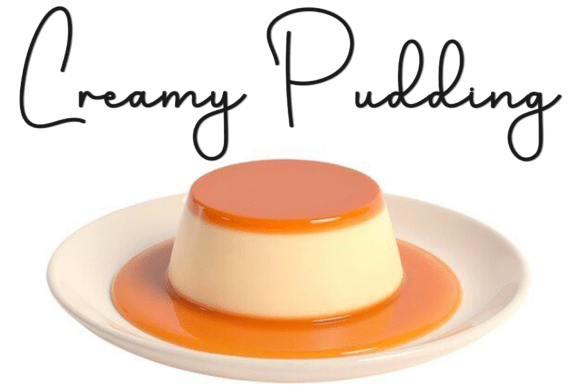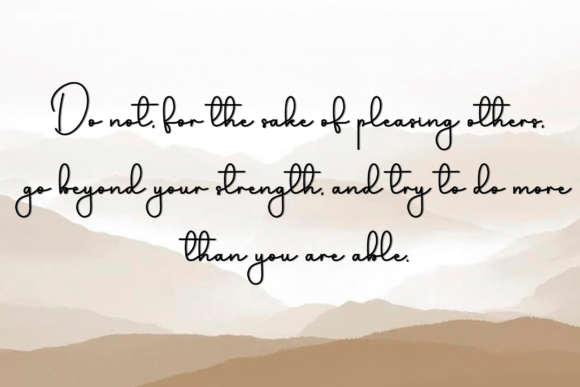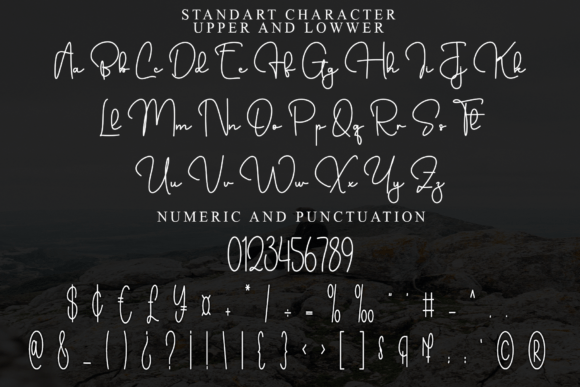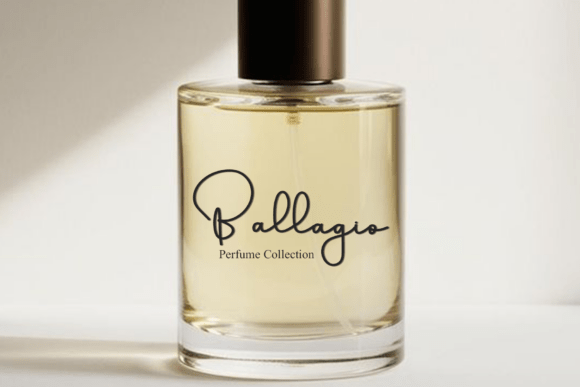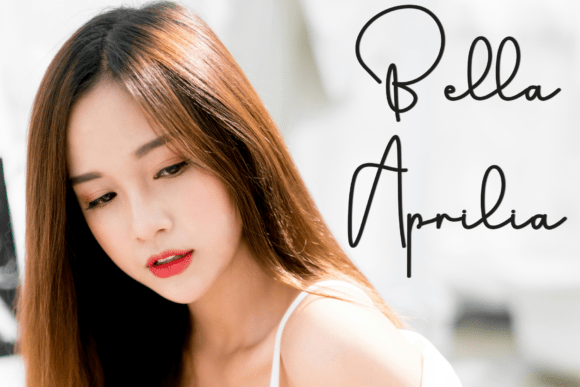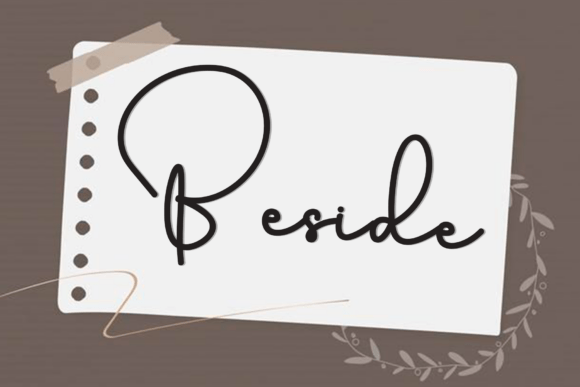
Introducing Belgian Signature: The Epitome of Elegance in Modern Calligraphy
In the realm of typography, few fonts manage to convey the essence of luxury and sophistication as effectively as Belgian Signature. This elegant and fluid script font is meticulously designed to infuse a sense of refined, hand-penned charm into luxury creative projects. Whether you’re a designer looking to elevate a boutique brand’s identity or a crafter aiming to add a touch of elegance to event stationery, Belgian Signature stands out as an exceptional choice.
The Design Philosophy Behind Belgian Signature
Belgian Signature embodies the beauty of modern calligraphy, with its design centered around vertically elongated letterforms. These are rendered with a fine, monolinear stroke weight that ensures consistency and clarity, even at smaller sizes. The smooth character joins further enhance the font’s fluidity, creating a seamless reading experience that is as aesthetically pleasing as it is functional.
One of the defining features of Belgian Signature is its large, sweeping loops and rhythmic visual flourishes. These elements not only contribute to the font’s luxurious feel but also provide a sense of customized artistry. Each character is designed to convey a sense of movement and elegance, making the font perfect for applications where a high-end professional presence is desired.
Applications of Belgian Signature
The versatility of Belgian Signature makes it suitable for a wide range of luxury creative projects. Here are some of the key areas where this font truly shines:
- Boutique Brand Identities: For luxury brands, establishing a sophisticated and distinctive visual identity is crucial. Belgian Signature, with its elegant and refined appearance, offers a perfect solution for logos, packaging, and marketing materials.
- Personal Signature Watermarks: Adding a personal touch to your documents or artworks can be achieved with elegance using Belgian Signature as a watermark. Its unique and fluid design ensures that your signature stands out with sophistication.
- Elegant Event Stationery: Whether it’s wedding invitations, event programs, or thank-you cards, Belgian Signature brings an unmatched level of elegance to your stationery. Its luxurious feel ensures that your event communications are memorable and impactful.
- Professional Social Media Headers: For professionals and businesses looking to elevate their social media presence, Belgian Signature offers a stylish solution for headers and banners. Its modern calligraphy style ensures that your profile stands out with a touch of sophistication.
Why Choose Belgian Signature?
Choosing a font for your creative project involves considering numerous factors, from readability and versatility to the overall aesthetic it brings. Belgian Signature stands out for several reasons:
- Unique and Memorable: The distinctive design of Belgian Signature ensures that your project leaves a lasting impression. Its elegant and fluid script is not only visually appealing but also highly memorable.
- High Versatility: This font’s adaptability makes it suitable for a wide range of applications, from digital platforms to print materials. Its scalability ensures that it maintains its elegance and clarity across various sizes and resolutions.
- Easy to Read: Despite its elegant and cursive nature, Belgian Signature is remarkably legible. This makes it an excellent choice for body text in addition to headlines and titles.
Belgian Signature is more than just a font; it’s a statement of elegance and sophistication. Its modern calligraphy style, characterized by vertically elongated letterforms and smooth joins, brings a touch of luxury to any creative project. Whether you’re a designer working on a boutique brand’s identity or a crafter looking to add an elegant touch to your stationery, Belgian Signature offers the perfect blend of style, versatility, and professionalism. Elevate your projects with the refined charm of Belgian Signature and make a lasting impression on your audience.